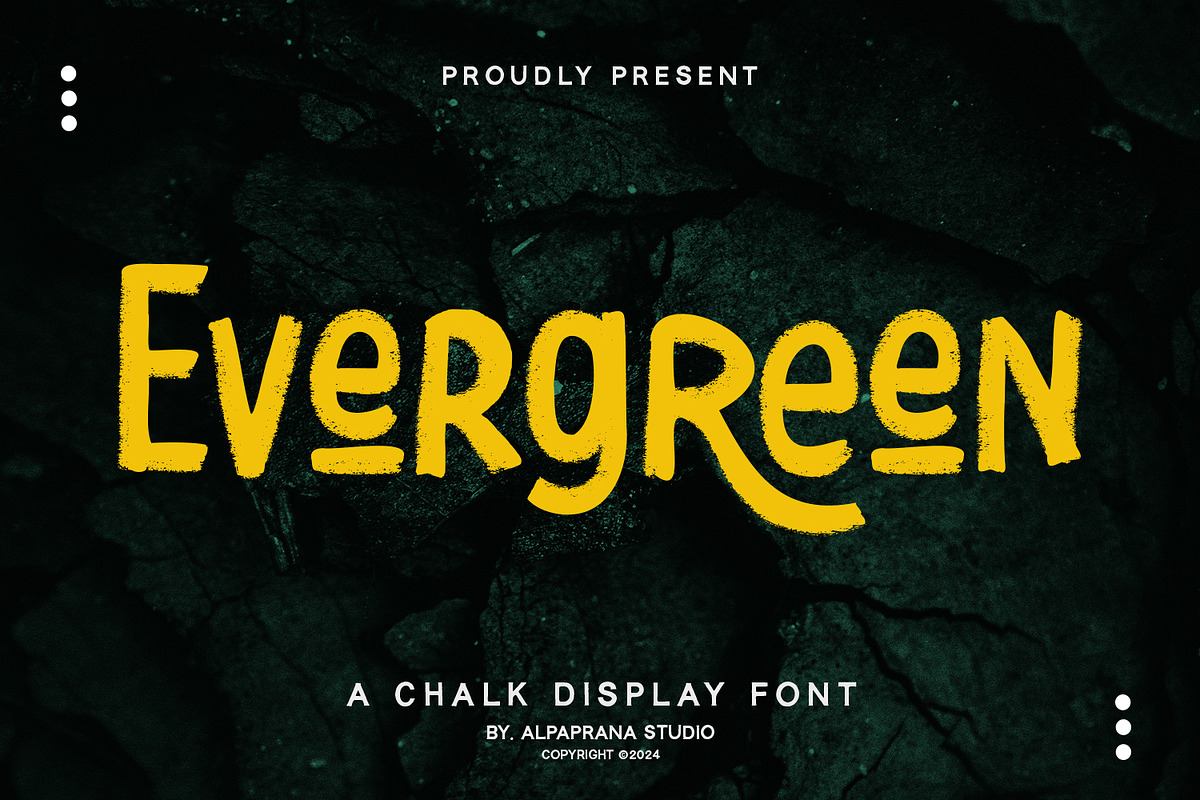
Evergreen - Display Font Free Download
Evergreen - Display Font Free Download is a bold and captivating typeface designed to make a statement. With its unique letterforms and eye-catching design, this font is perfect for creating impactful logos, posters, advertisements, and any project that requires a distinctive look. Its strong, modern style ensures your message stands out with clarity and style. Whether you’re working on a seasonal campaign, a creative brand identity, or a promotional project, Evergreen - Display Font Free Download gives you the chance to test its bold design in personal projects before purchasing a commercial license. Add strength and style to your designs with this striking and versatile display font.